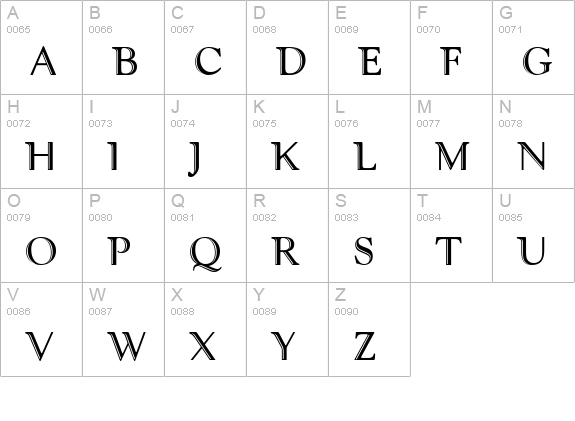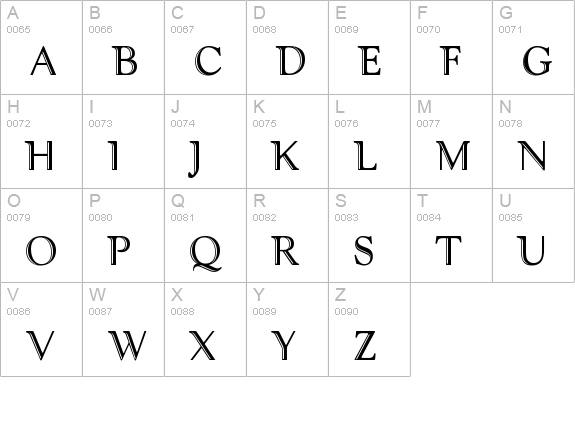
PFVenture Engraved Font Details
PFVenture Engraved font is a bold and sophisticated typeface that exudes elegance and professionalism. With its clean lines and sharp edges, this font is perfect for creating eye-catching designs that demand attention. The distinctive engraved style adds a touch of class and refinement to any project. What sets PFVenture Engraved font apart is not only its striking appearance but also the fact that it is available for free download at FontsMarket.com. This means that you can easily access this high-quality font and use it in your designs without any cost. Whether you need a font for a logo, poster, or website, PFVenture Engraved is a versatile choice that will elevate your design to the next level. Download PFVenture Engraved font for free today at FontsMarket.com and add a touch of sophistication to your projects with this stunning typeface.